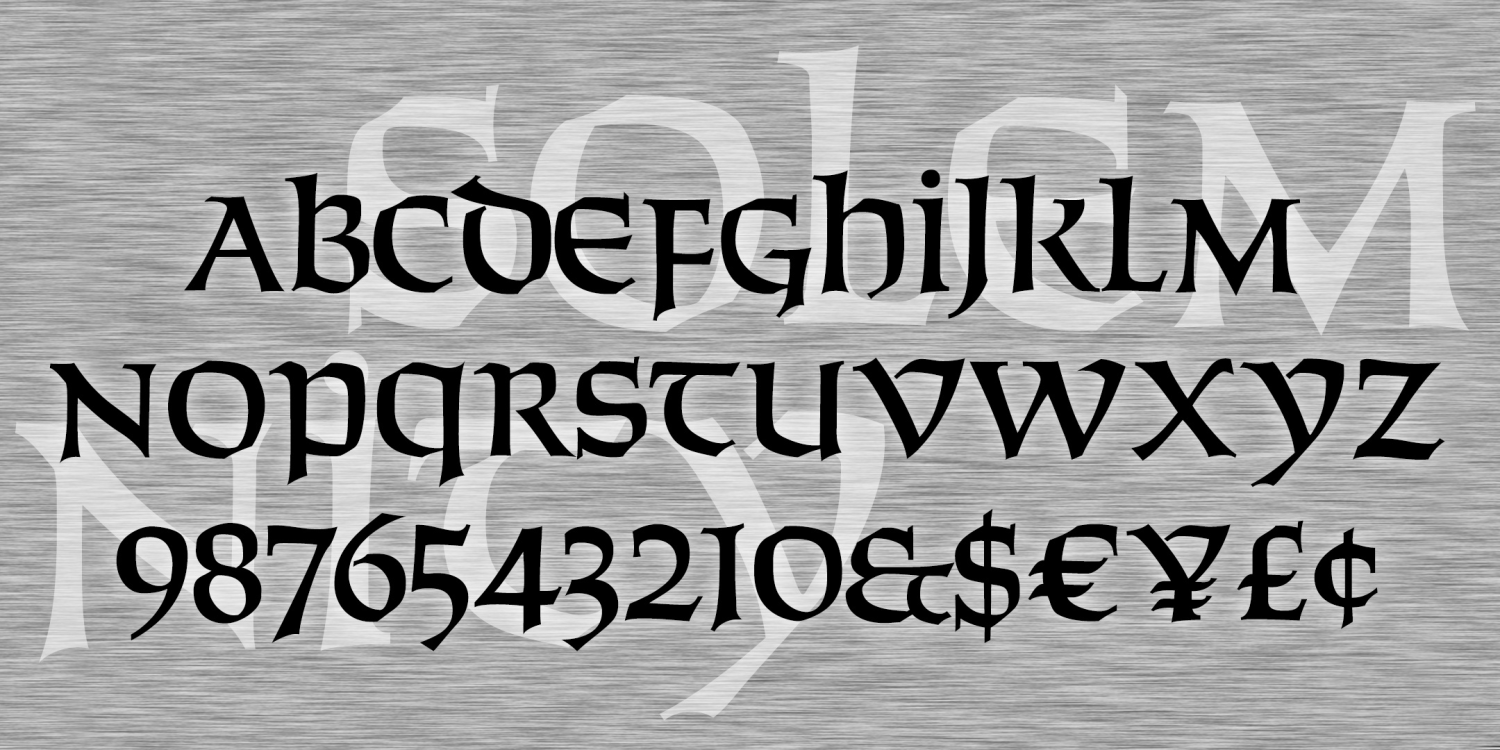
Solemnity
SOLEMNITY is a bold calligraphic font. It’s an uncial, having a single case that has aspects of upper-and lowercase forms. SOLEMNITY was inspired by Solemnis, a classic font designed by Günter Gerhard Lange in 1952. I drew my font fresh using…